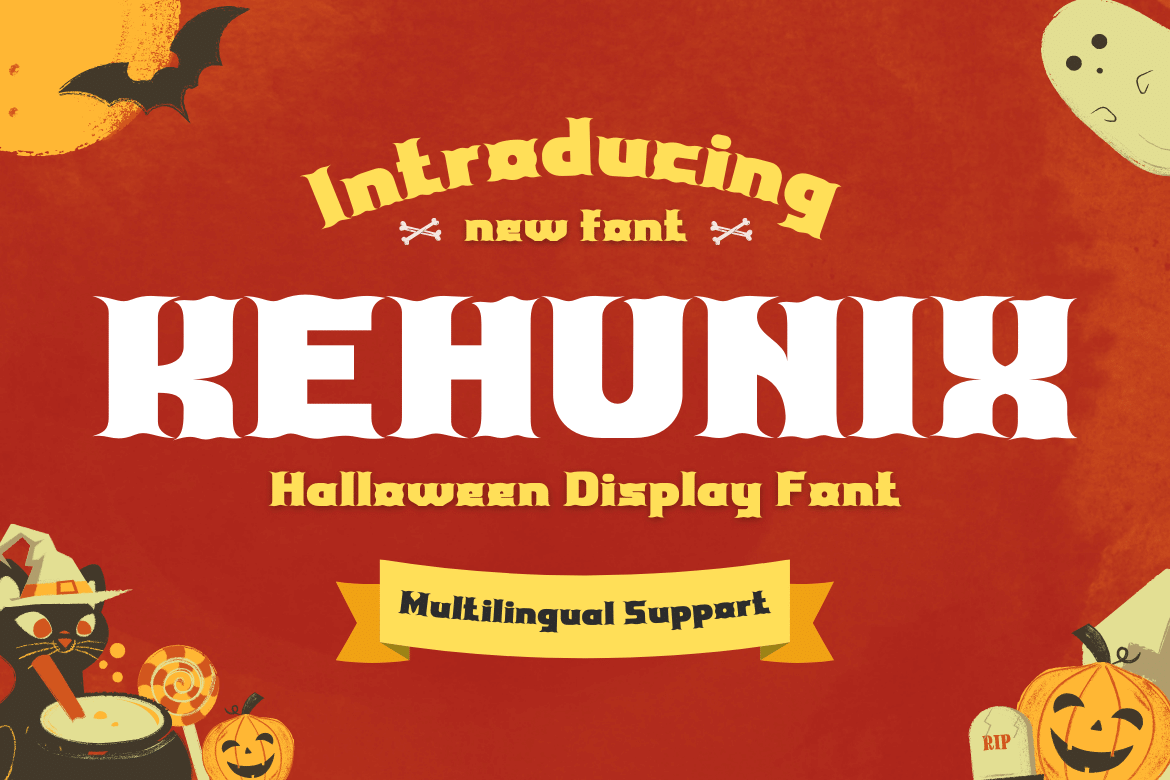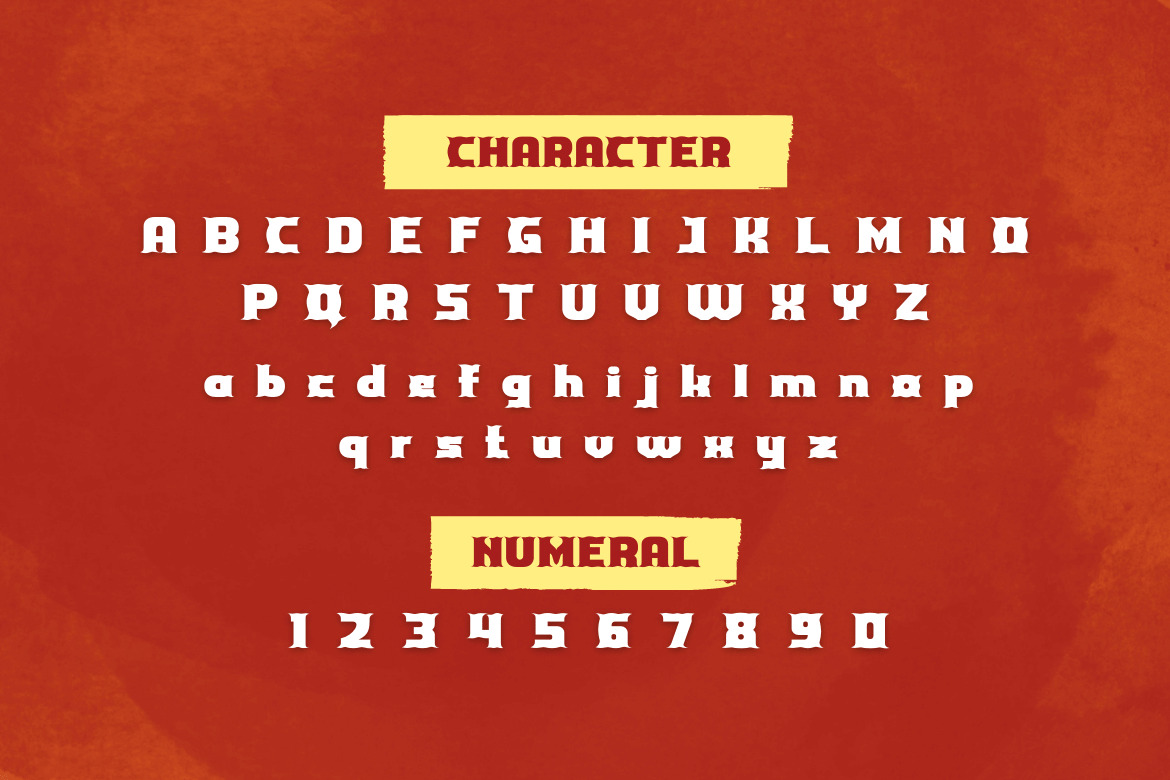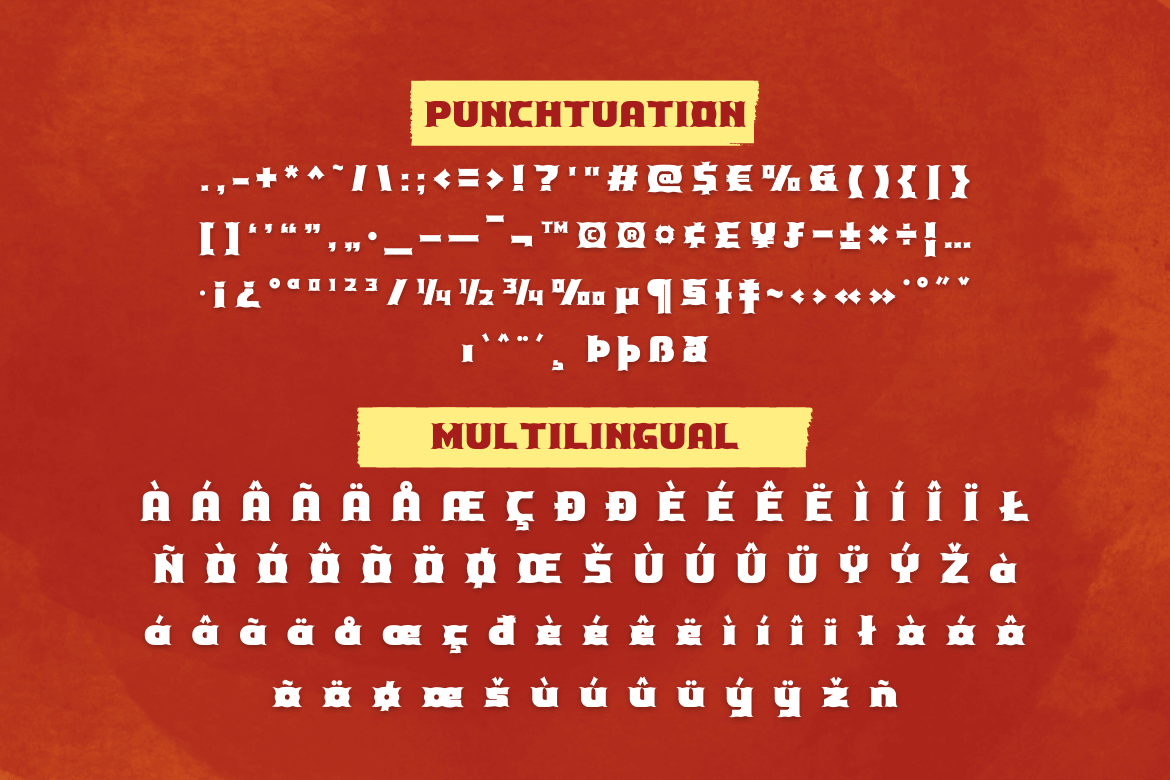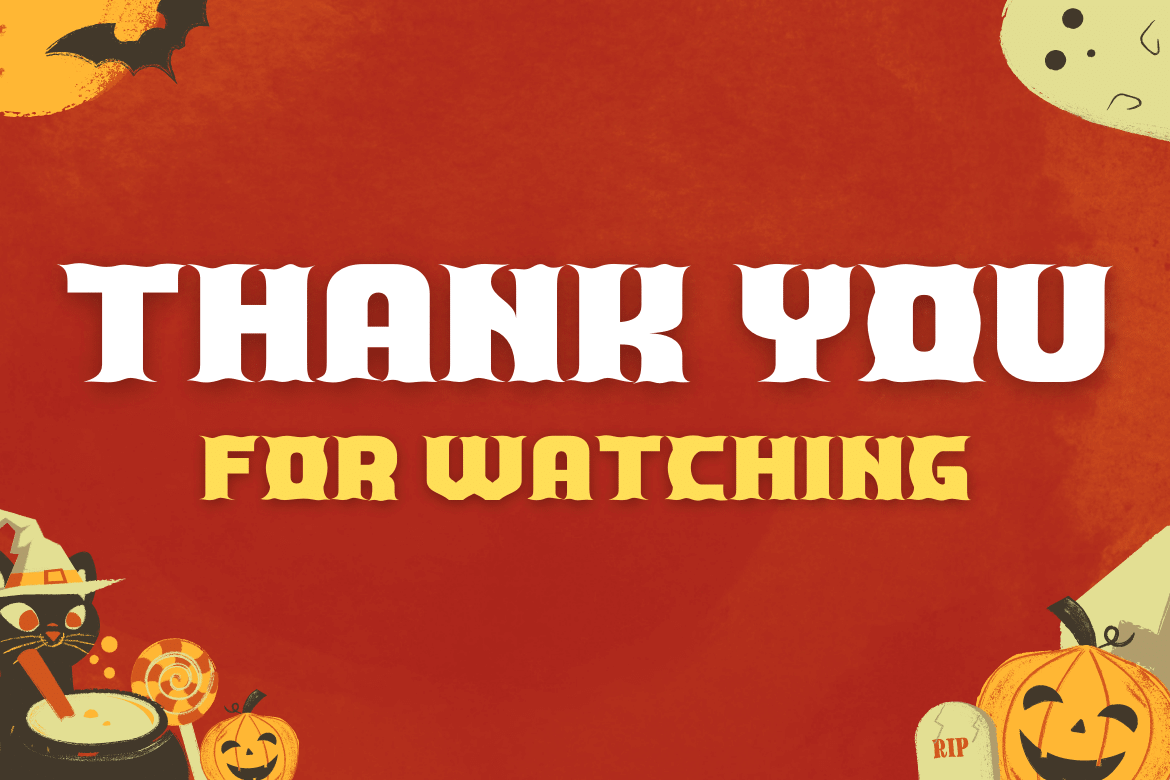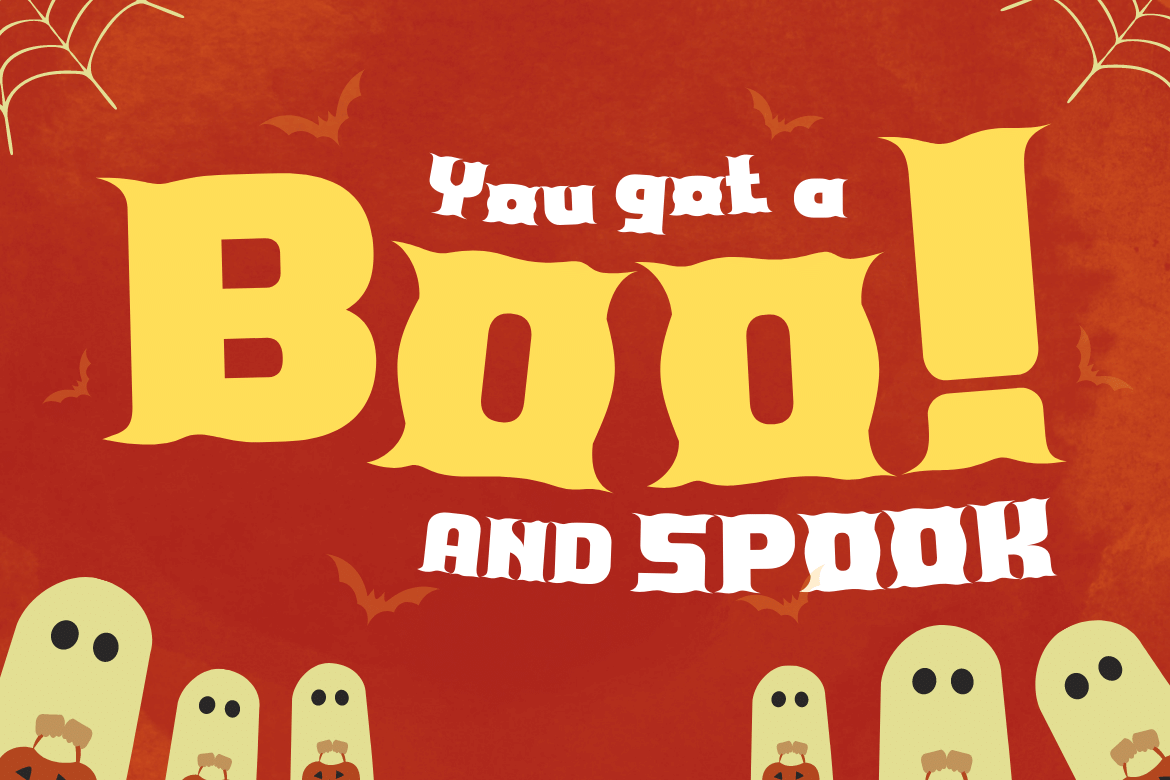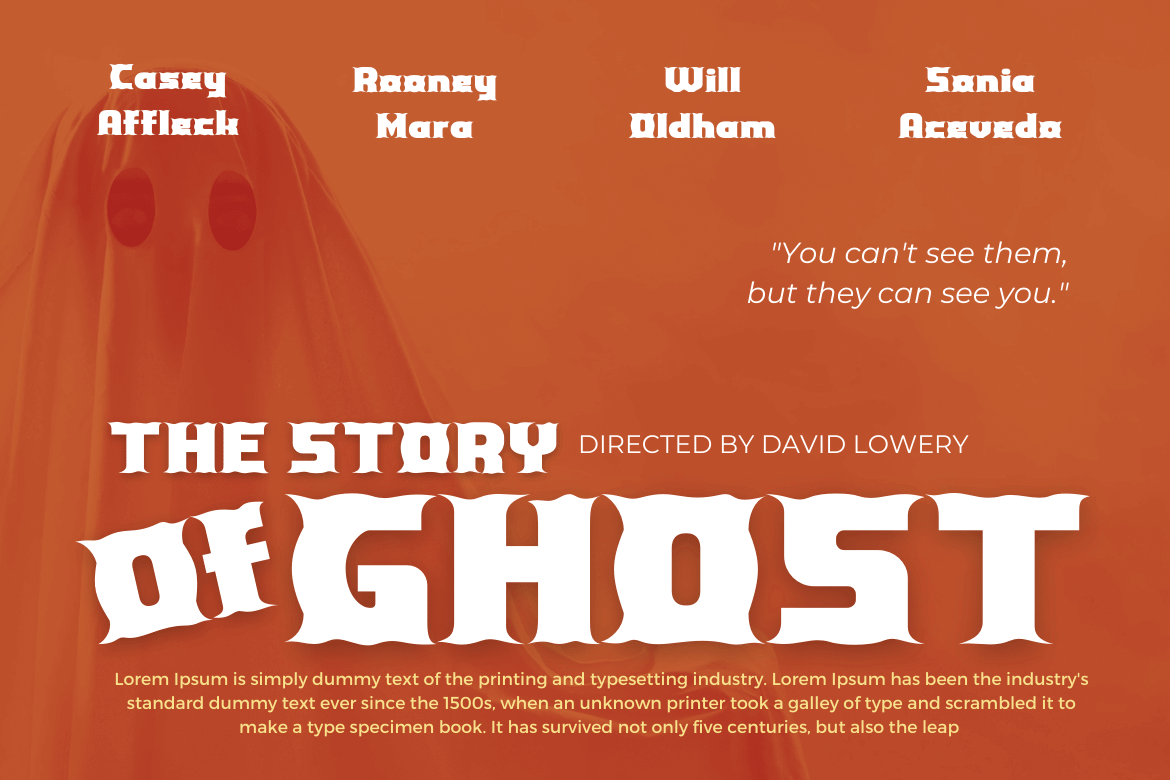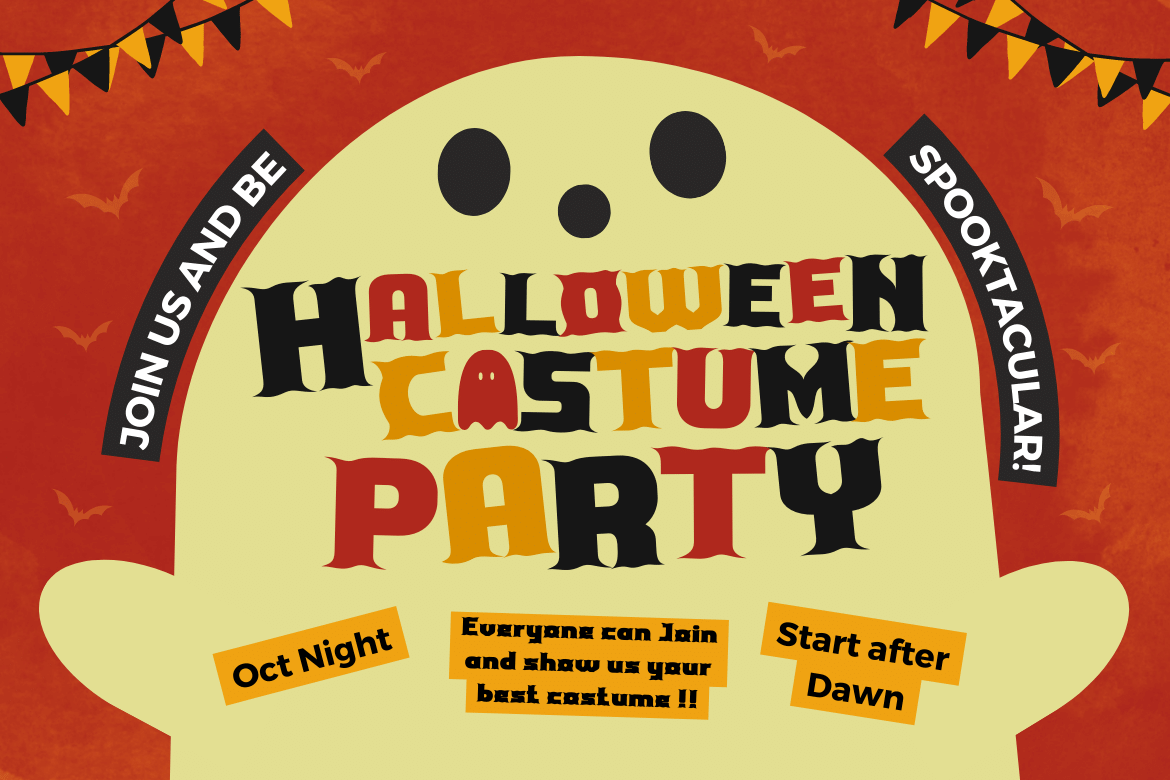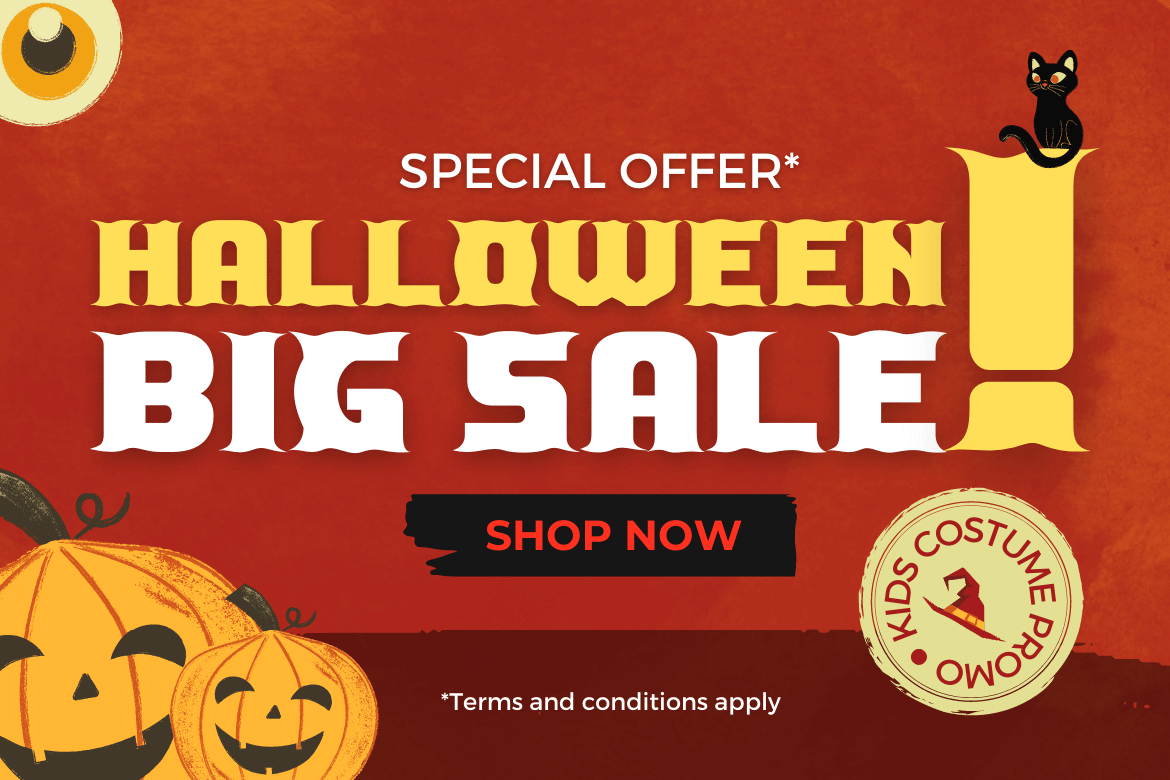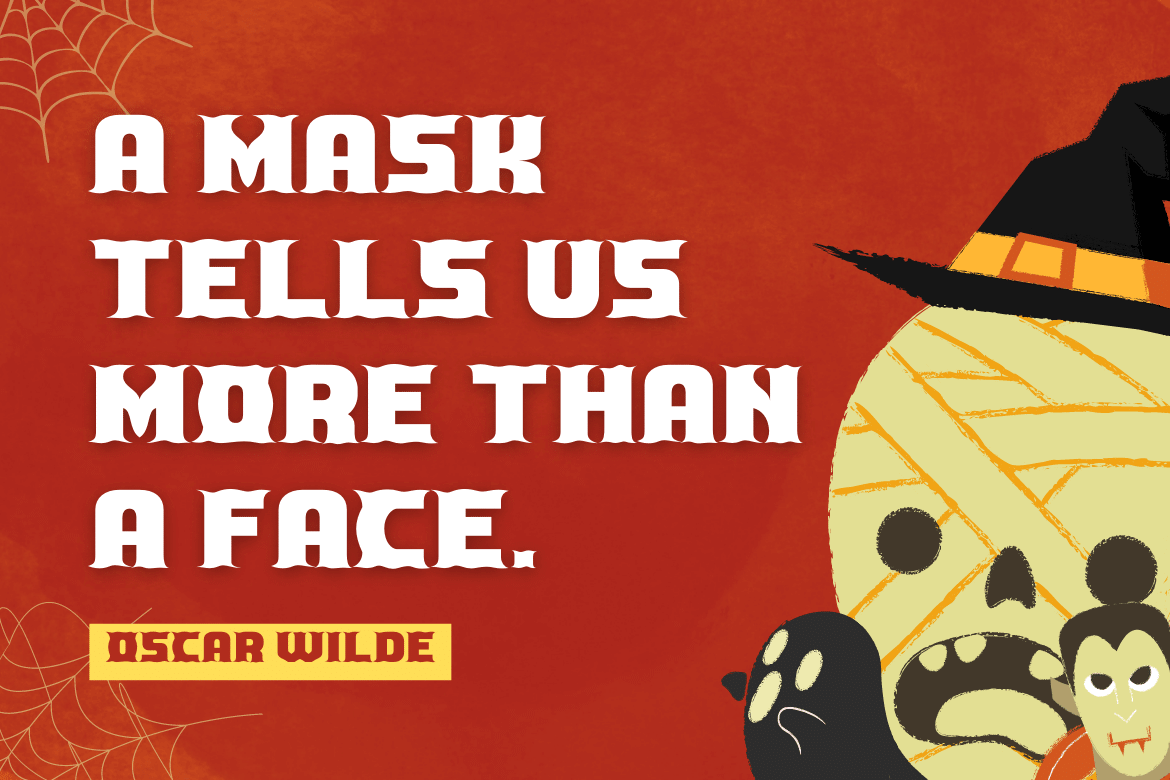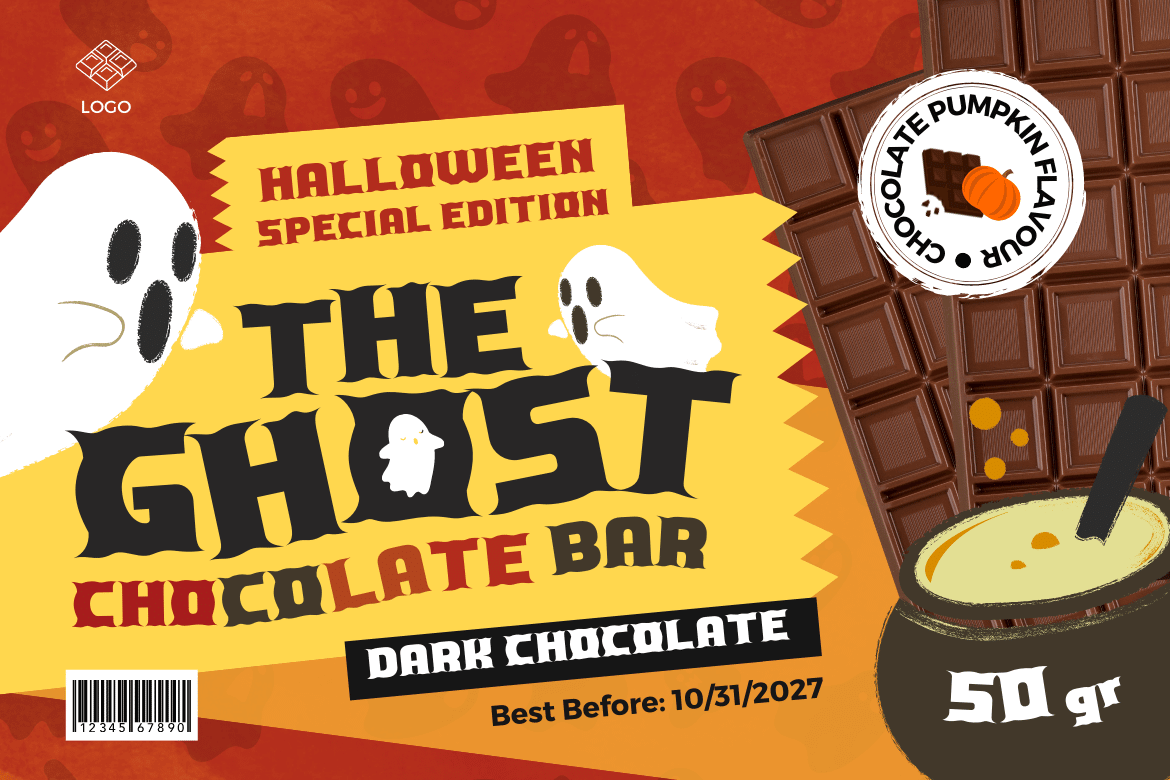
KEHUNIX
Introducing New font KEHUNIX
This Halloween Font is the perfect way to create a fun Halloween invitation, party poster, or another type. Simply download and add it to your design using simple instructions and let your imagination go!
Of course with this font your various design projects will be perfect and amazing, get a beautiful title and start using our font for your special project.